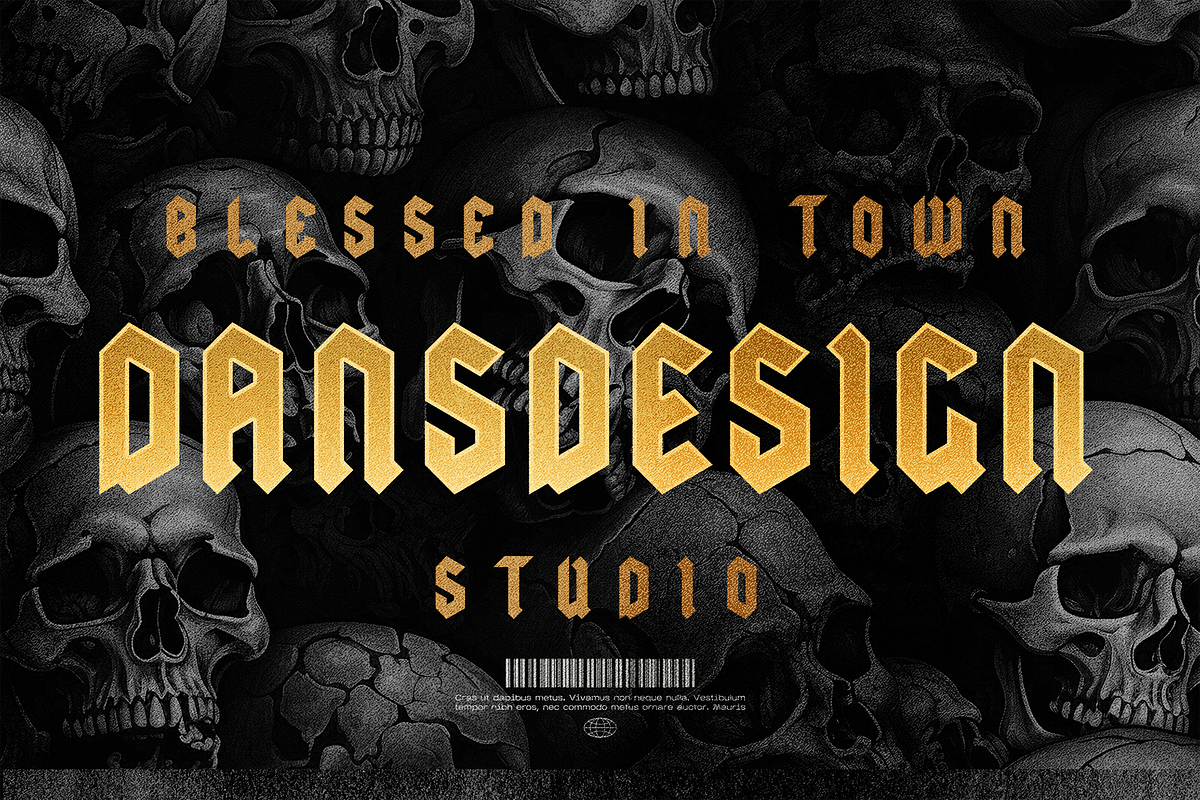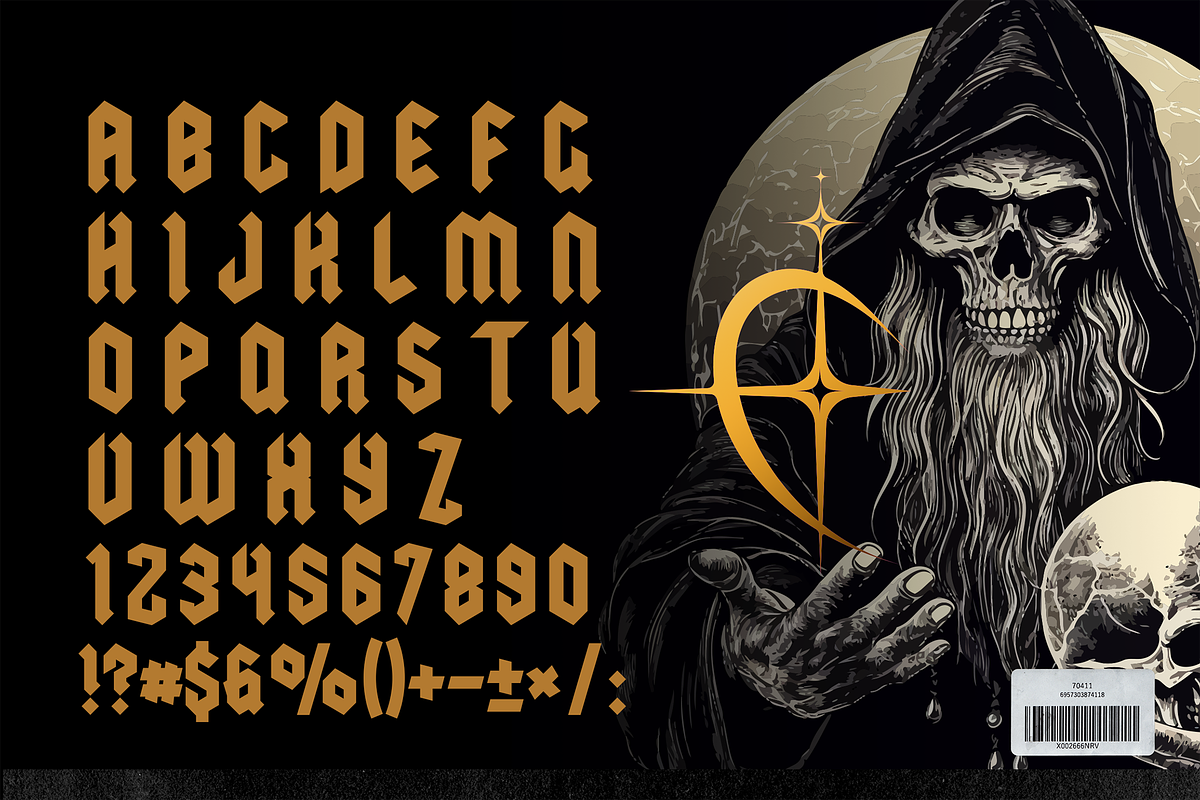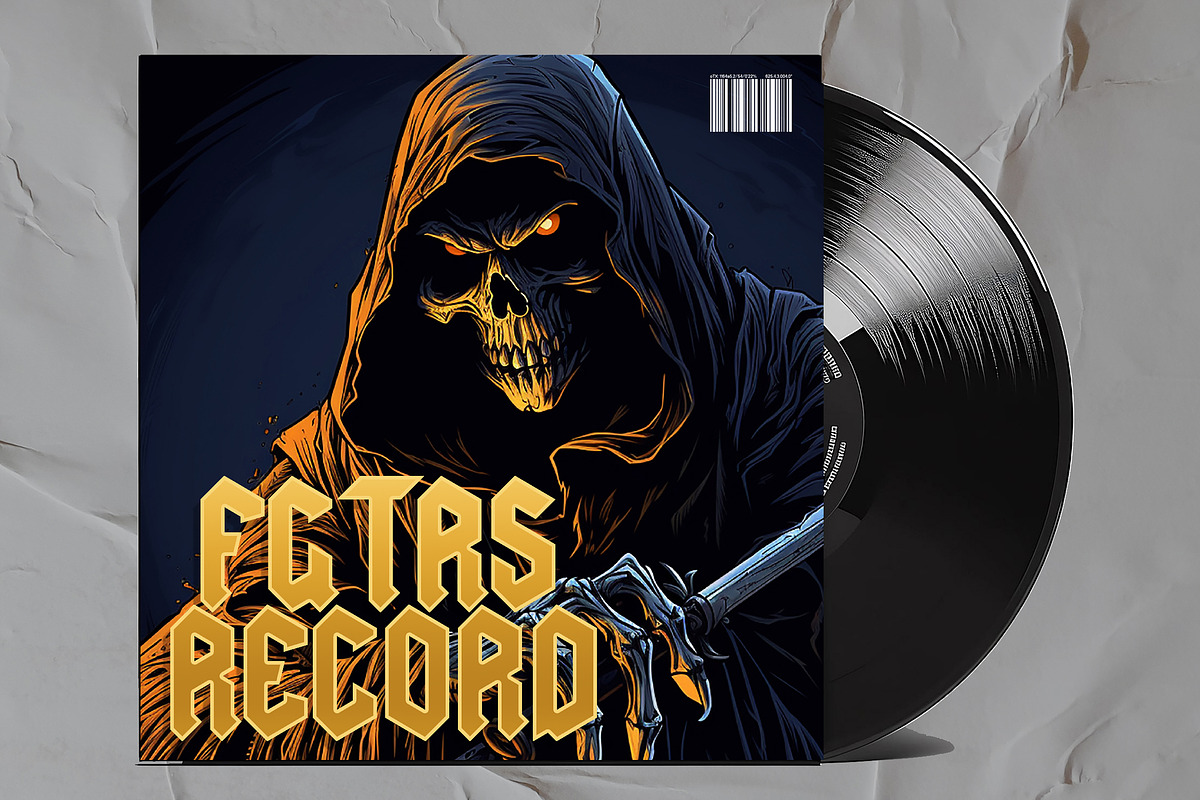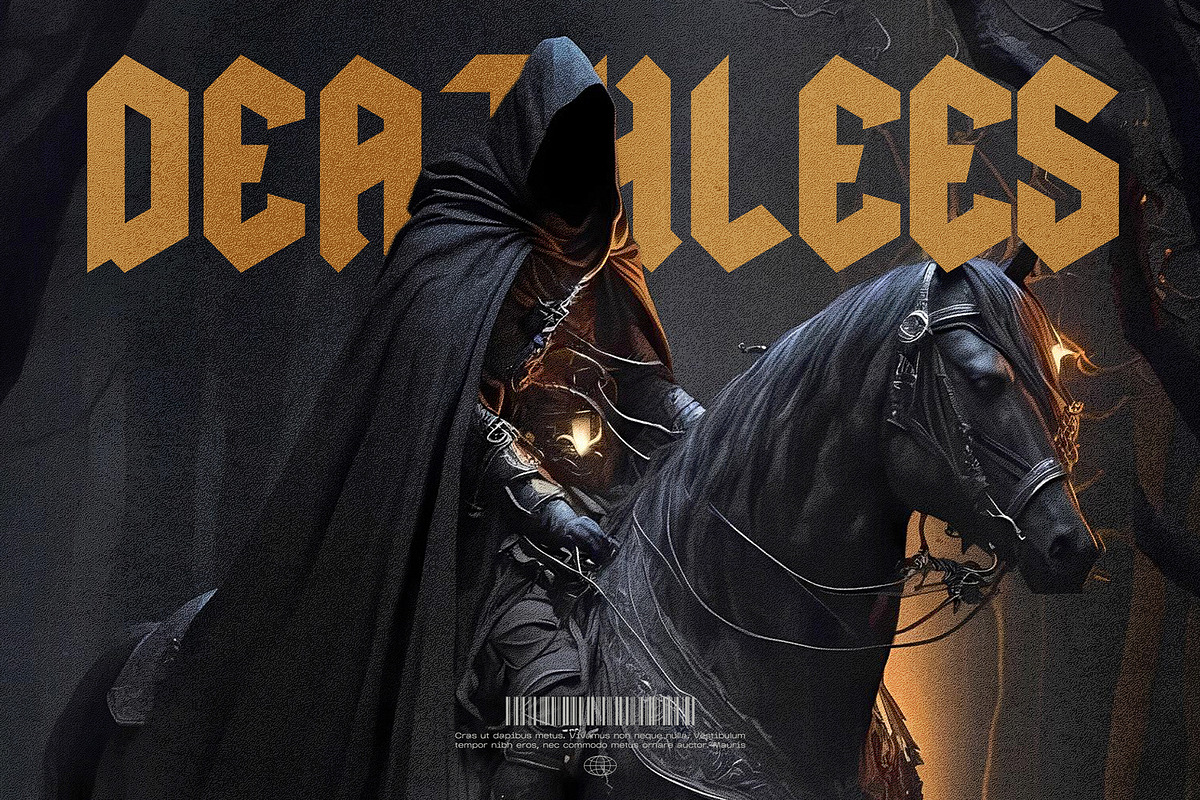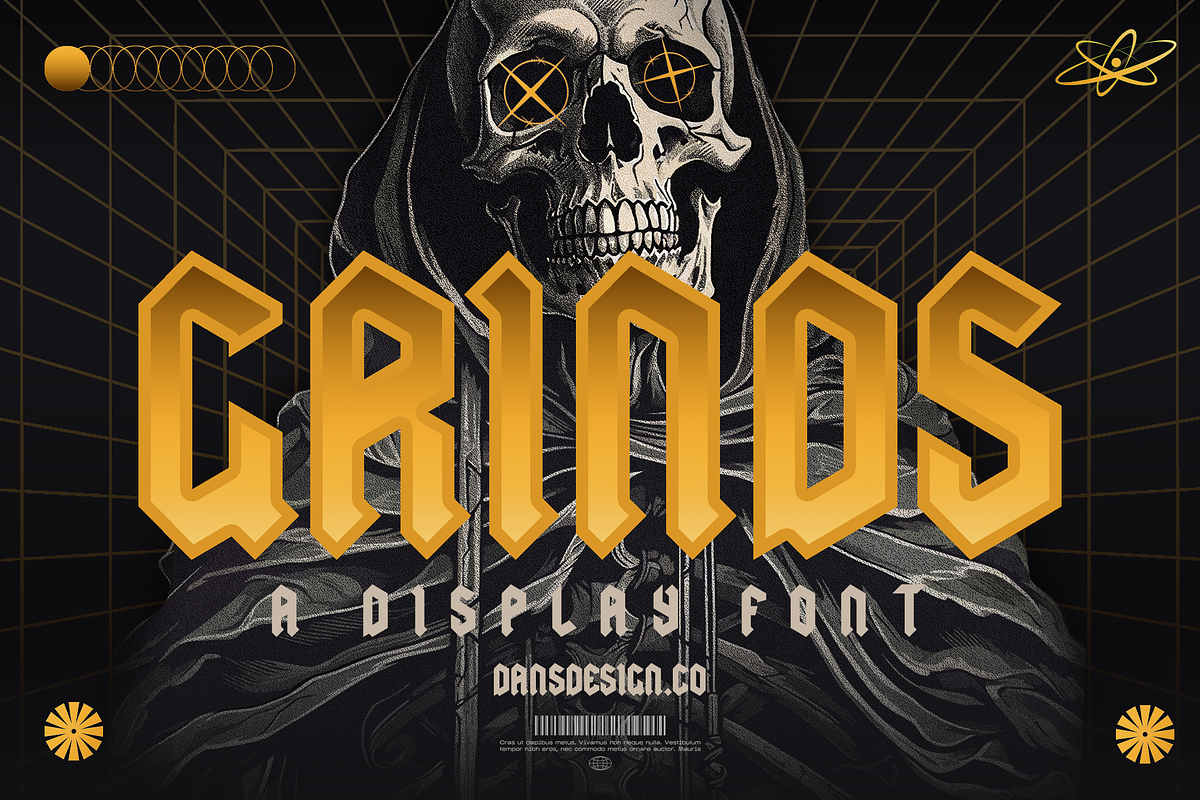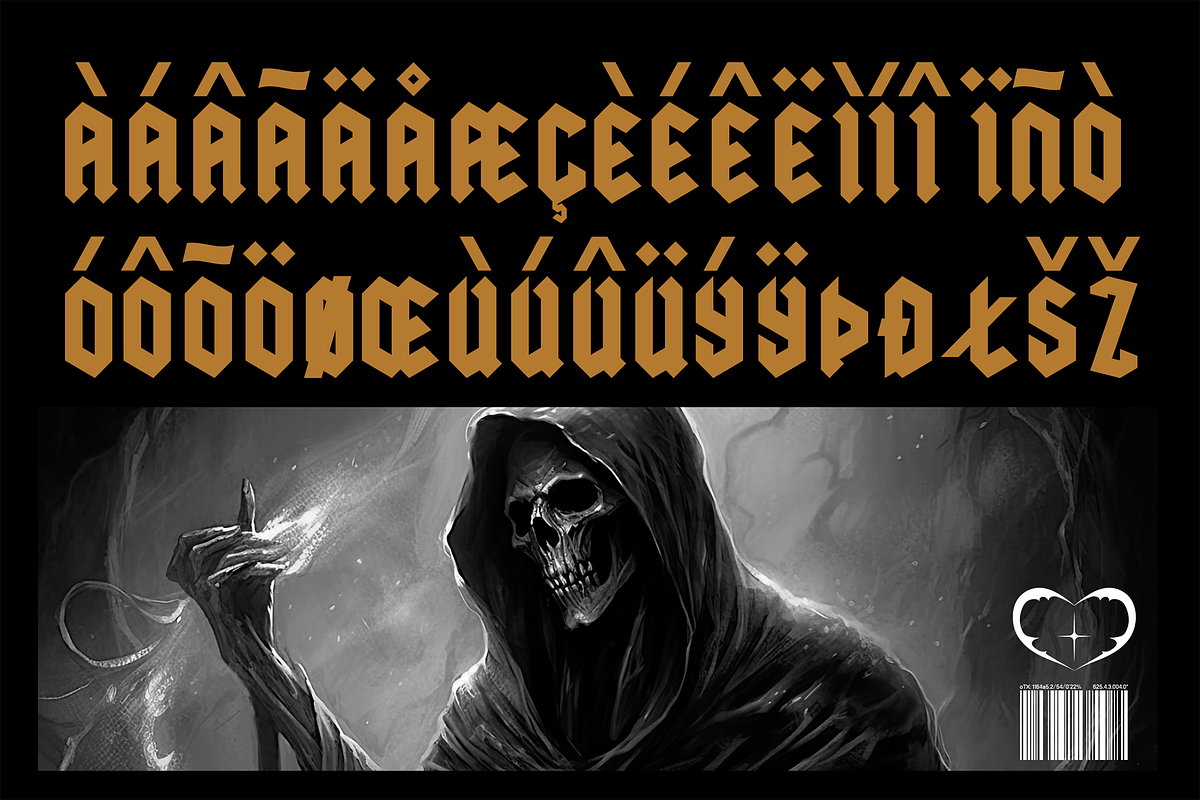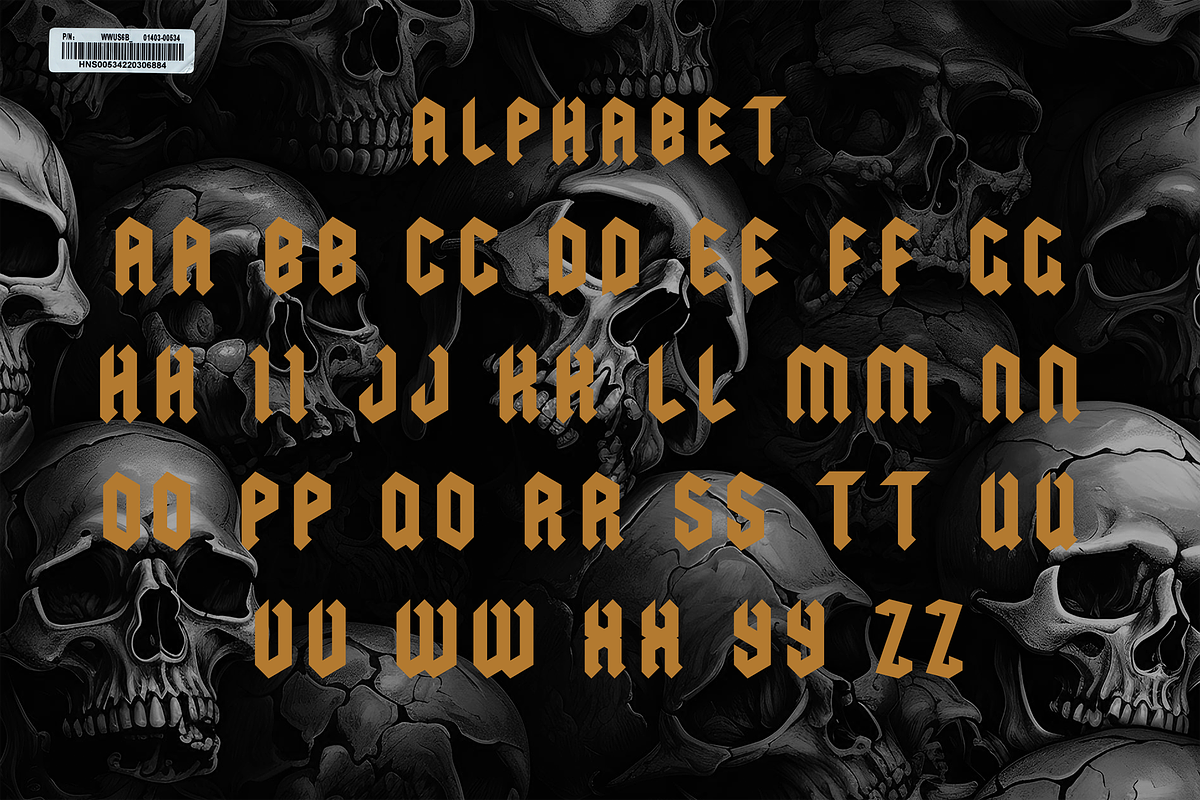
GRIND MODERN BLACKLETTER METAL FONT
GRIND MODERN BLACKLETTER METAL DISPLAY FONT
GRIND MODERN BLACKLETTER METAL DISPLAY FONT a distinct, highly detailed, and chic Blackletter font. It would make a great choice for exquisite retro-urban designs, tattoo business branding, logos, vintage designs, movie, poster, apparel, illustration, and more.
Featured : Accents (Multilingual characters) PUA encoded Numerals and Punctuation (OpenType Standard)